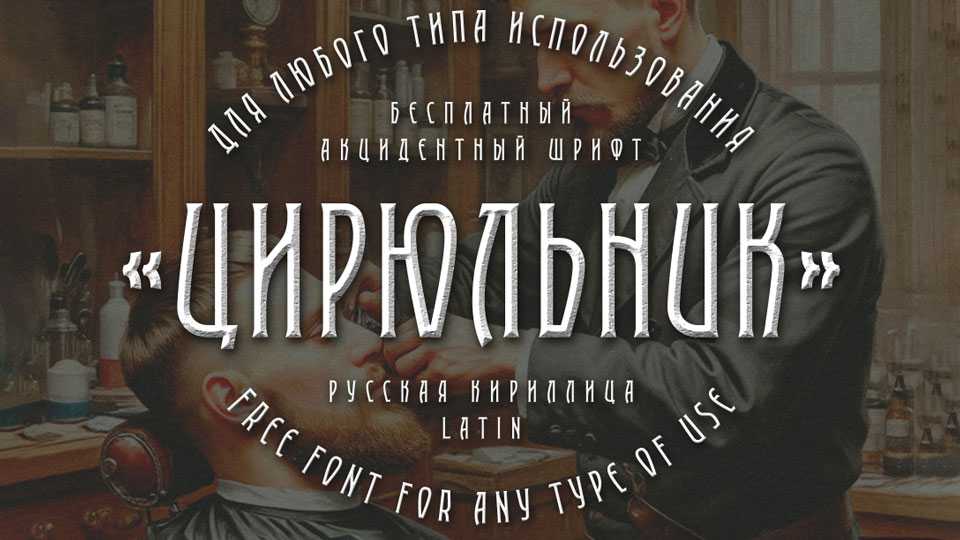
Download TD Ciryulnik font, a vintage-style display typeface that evokes the charm and elegance of old barbershops, apothecaries, and early 20th-century signage.
Designer: Dmitry Tektov